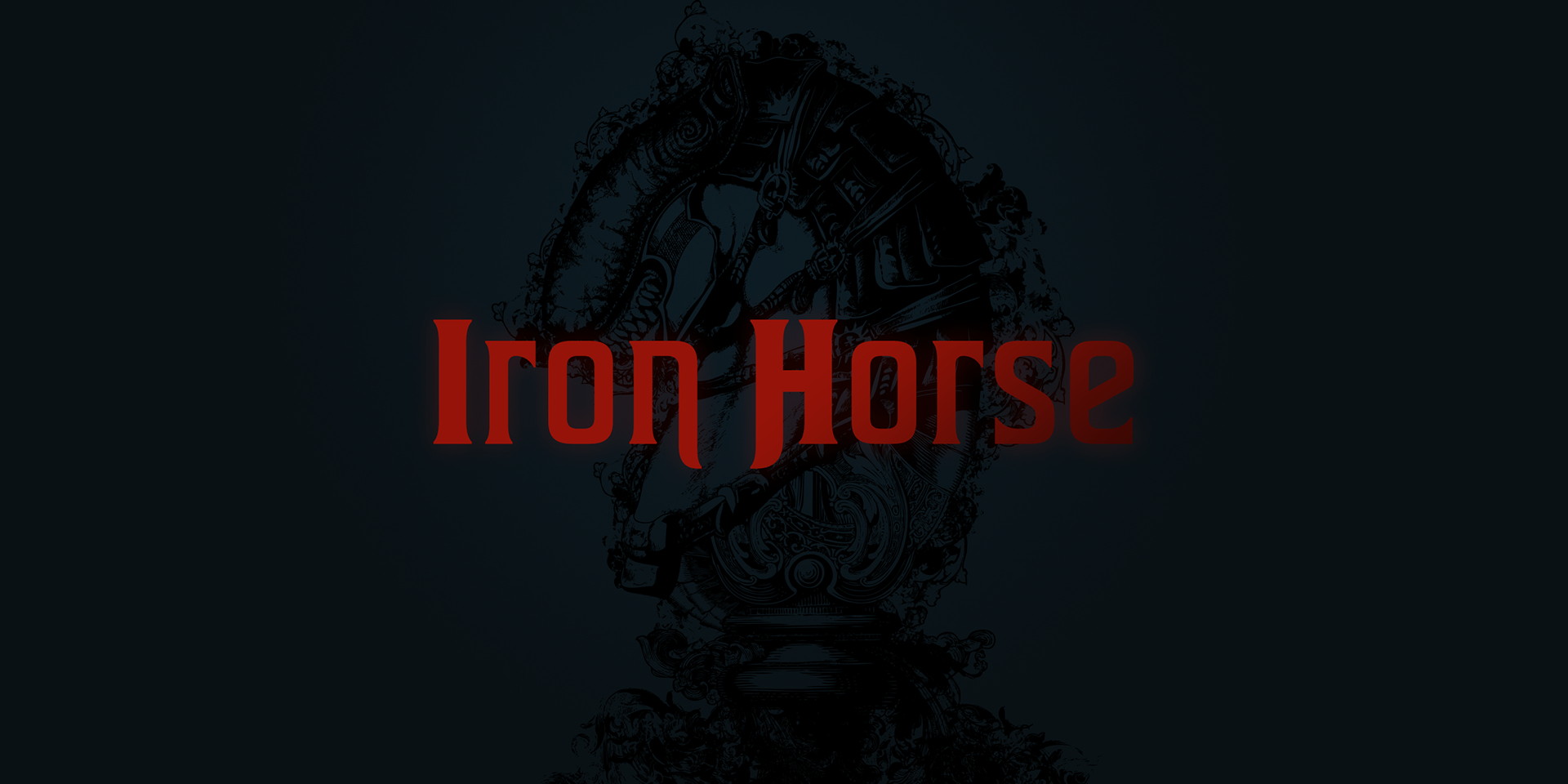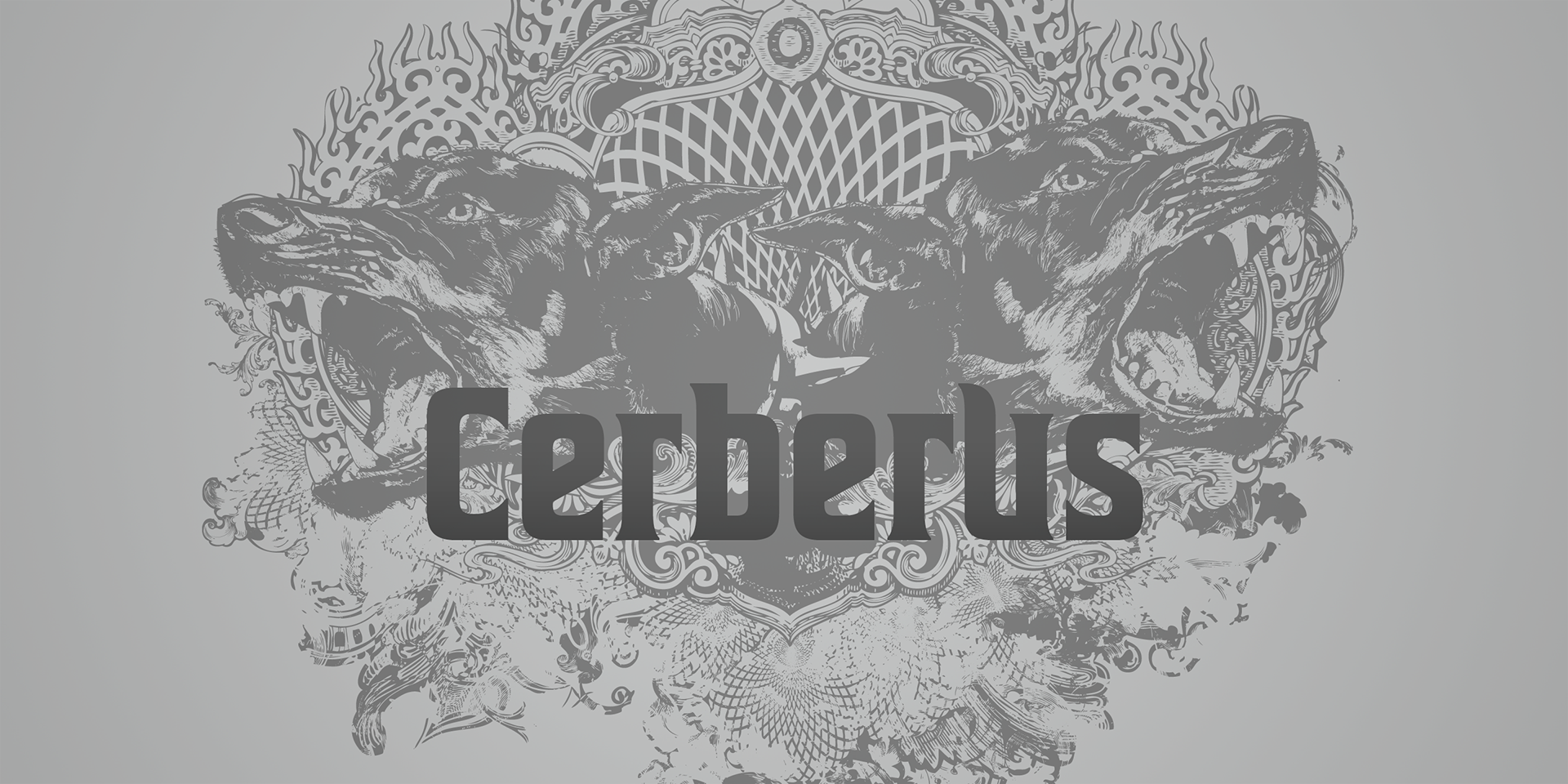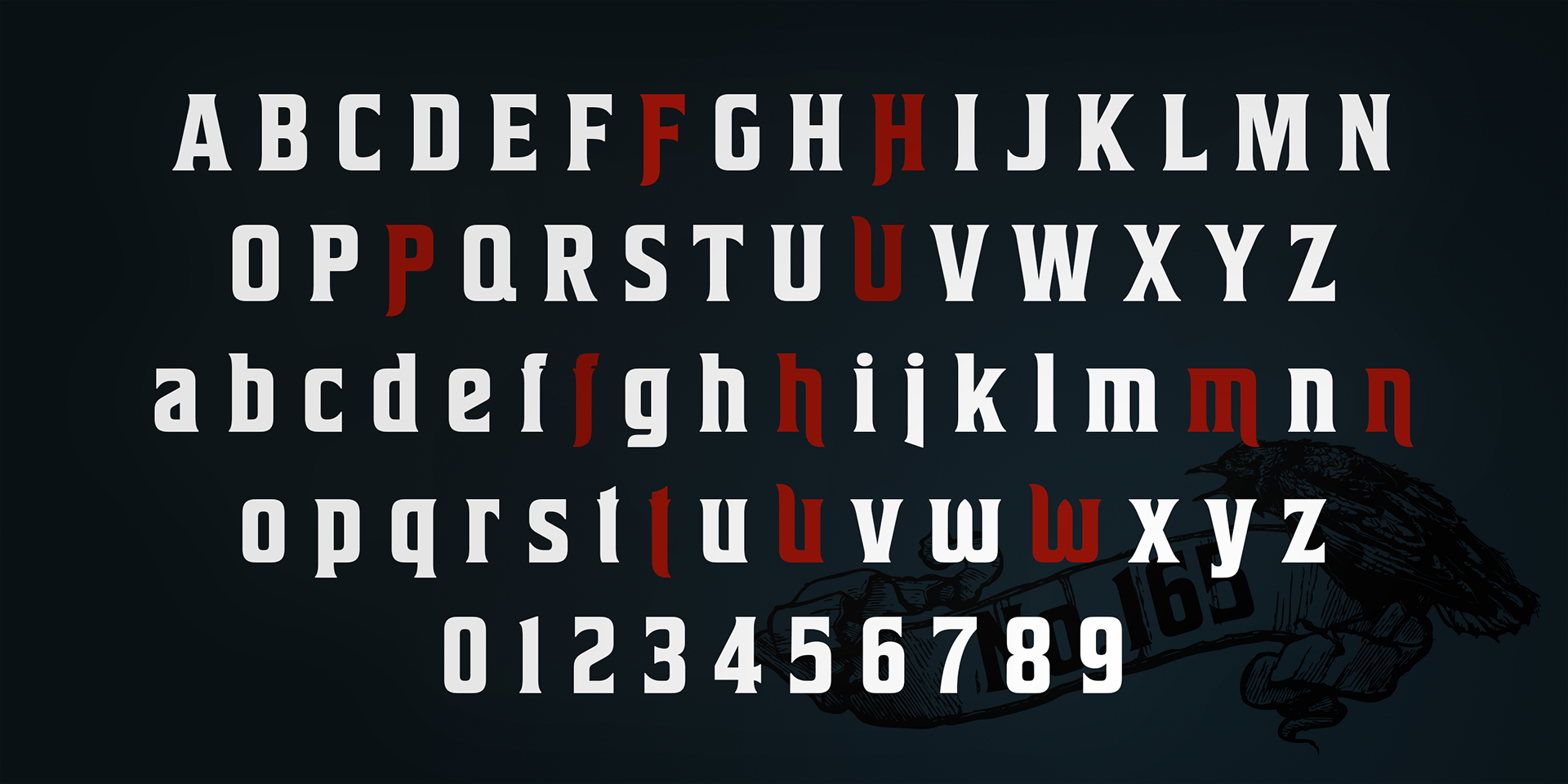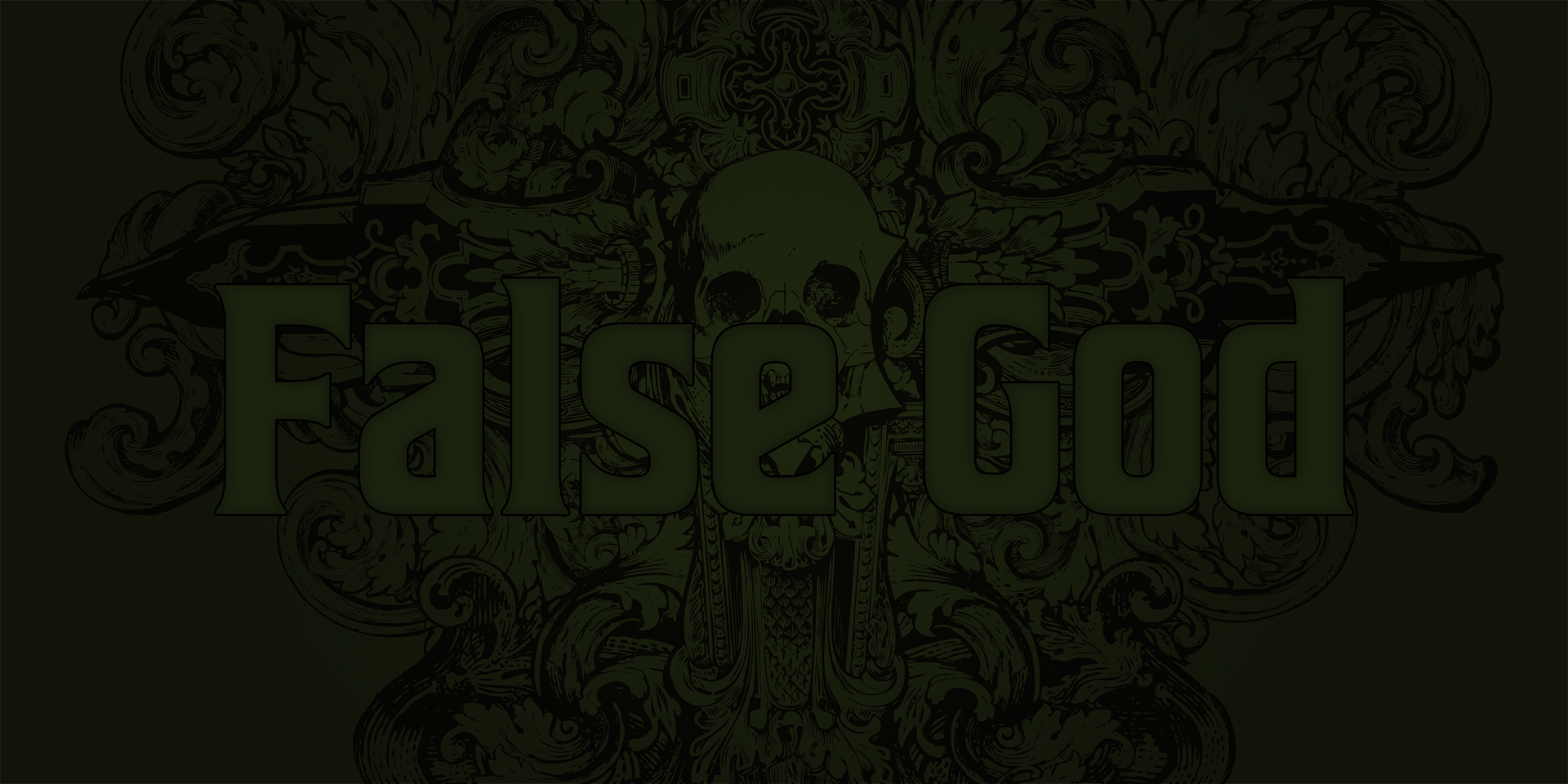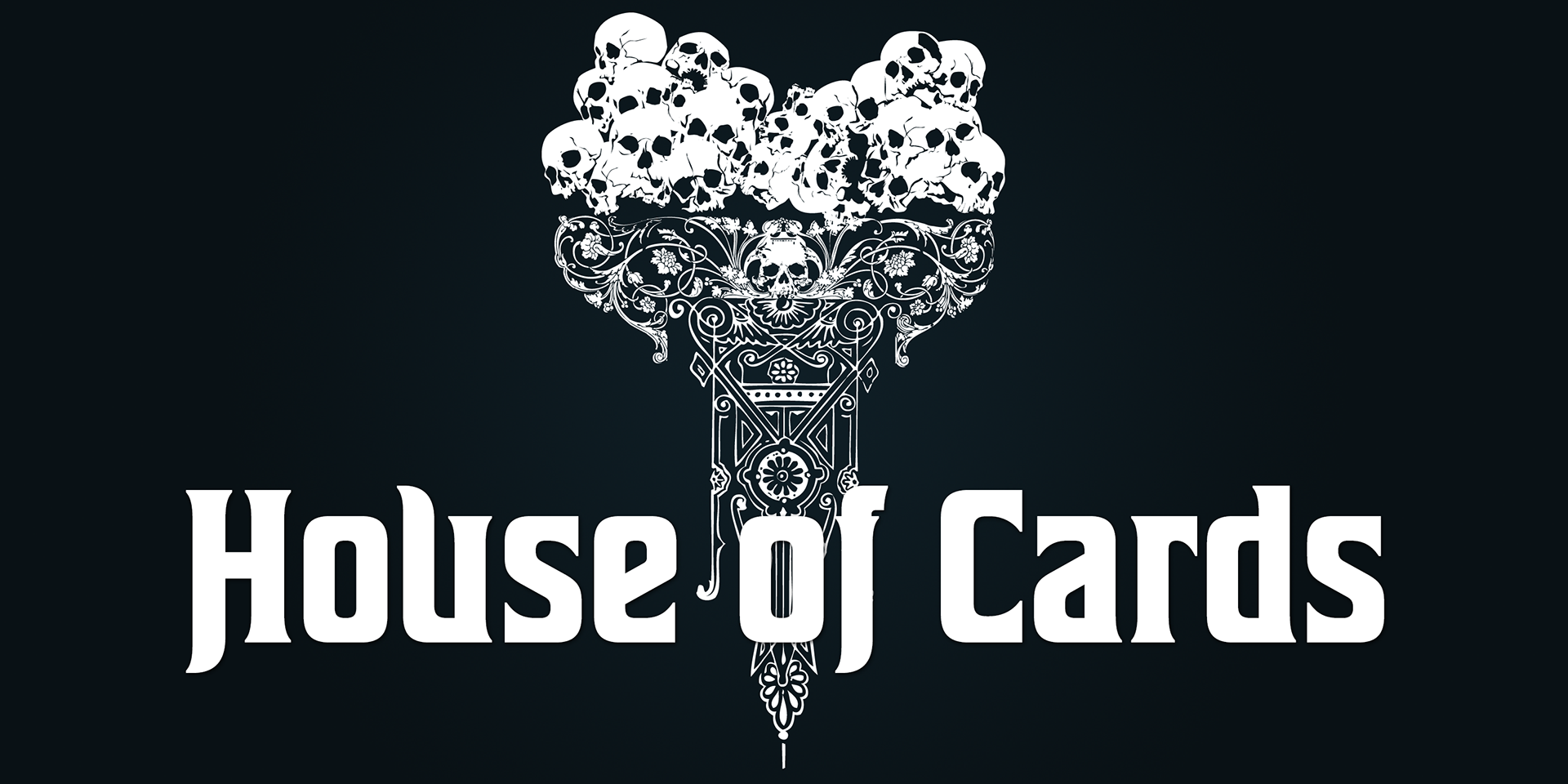
House of Cards
House of Cards is a vintage-inspired typeface based on Hamilton’s Teniers, one of the most popular wood type fonts of the 19th century.
While the lowercase characters have been slightly modified from the original to create a more natural and contemporary feel, each glyph retains the retro charm and nostalgic essence of classic wood type.
This modern revival includes 2 weights with matching italics, and features sprayed stroke alternates for letters such as F, H, P, U, f, h, m, n, t, u, and w.
These alternates can be accessed via OpenType Stylistic Alternates or Swash features, allowing for expressive and flexible vintage-style typography.
House of Cards is the perfect solution for posters, titles, and any design that calls for bold, nostalgic lettering.